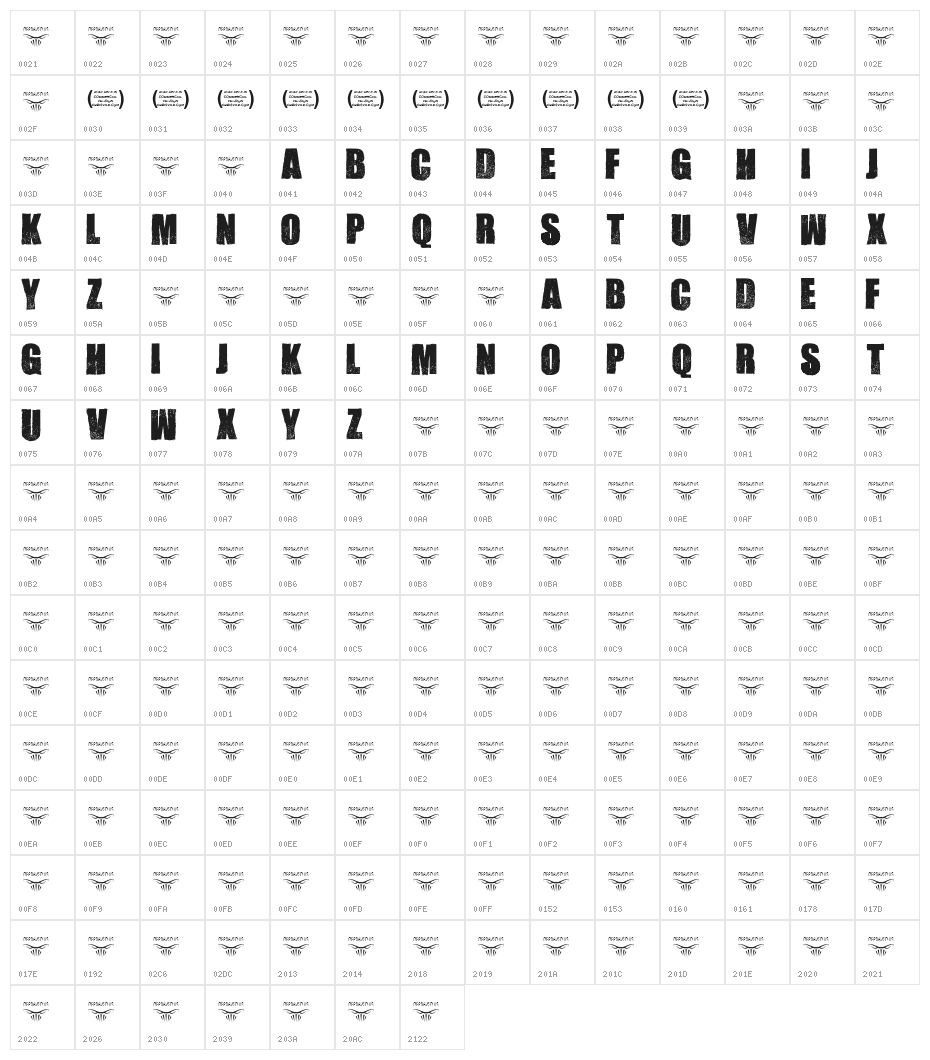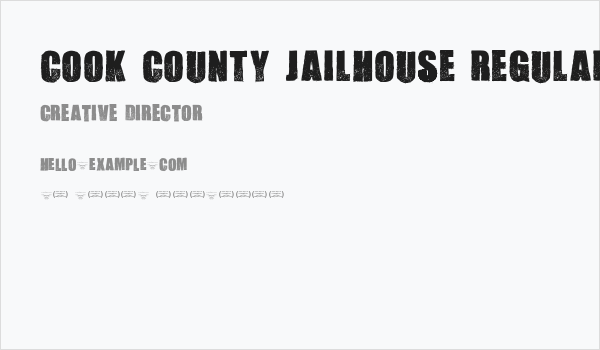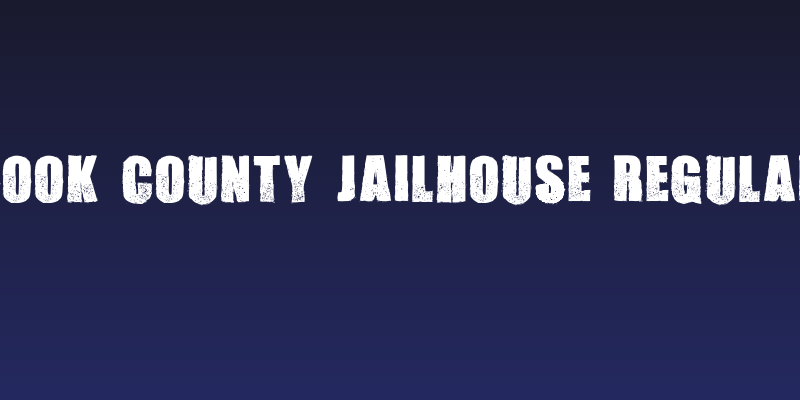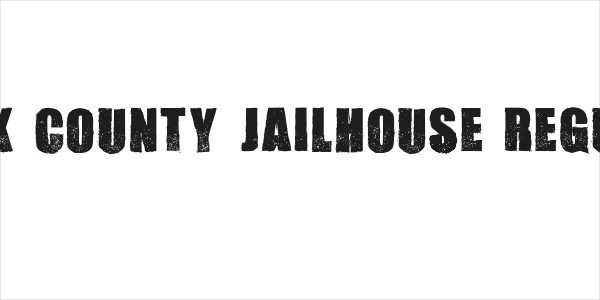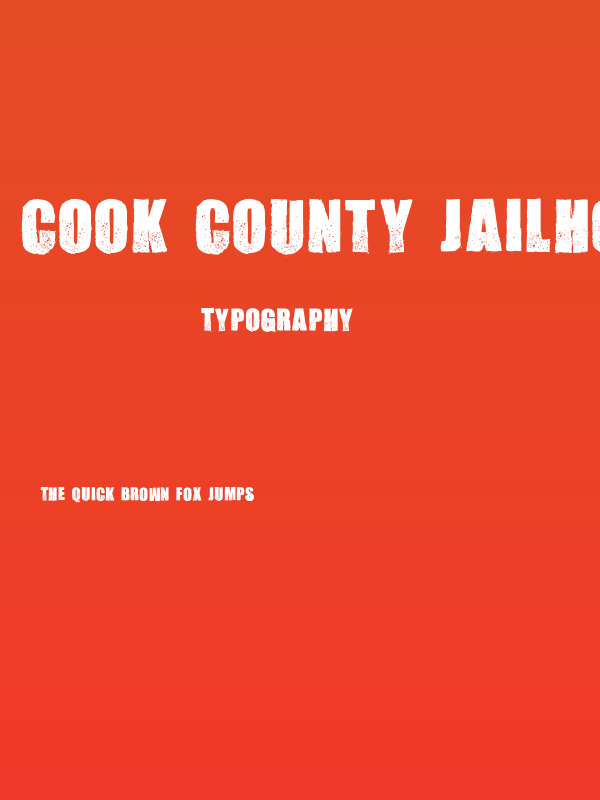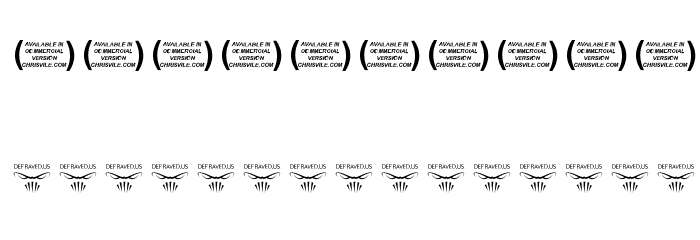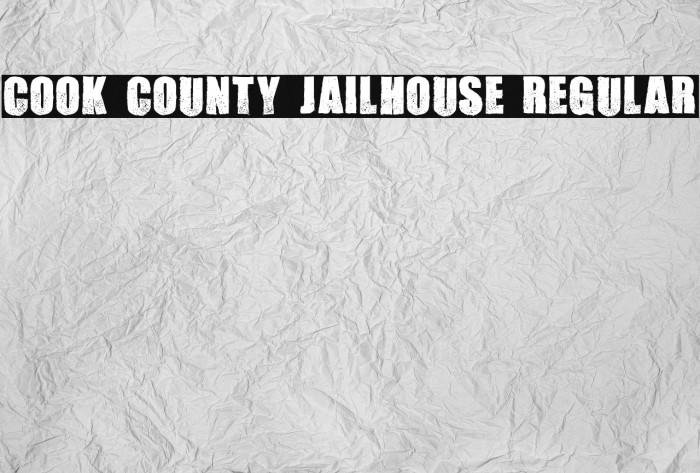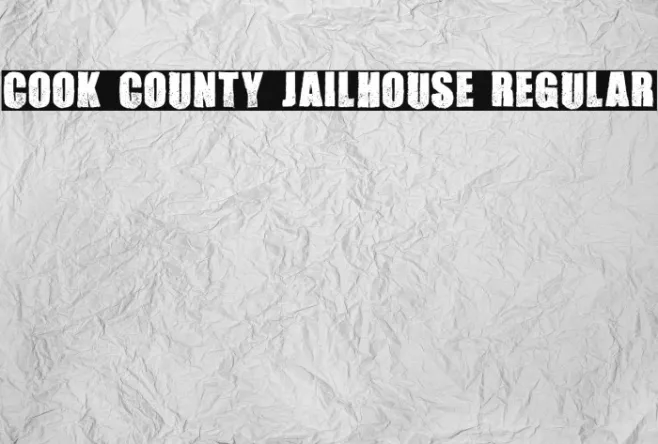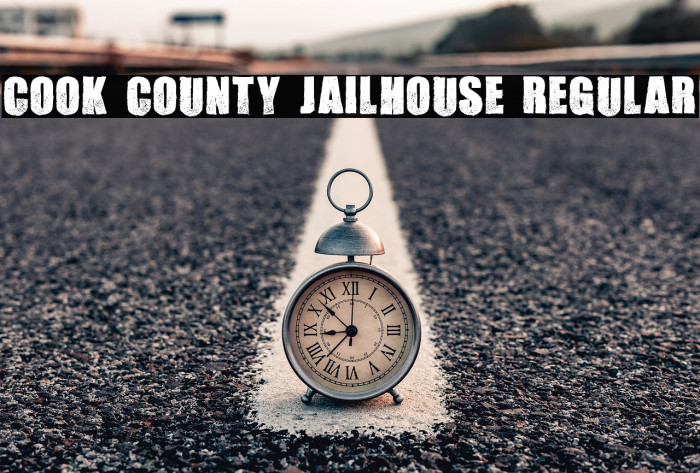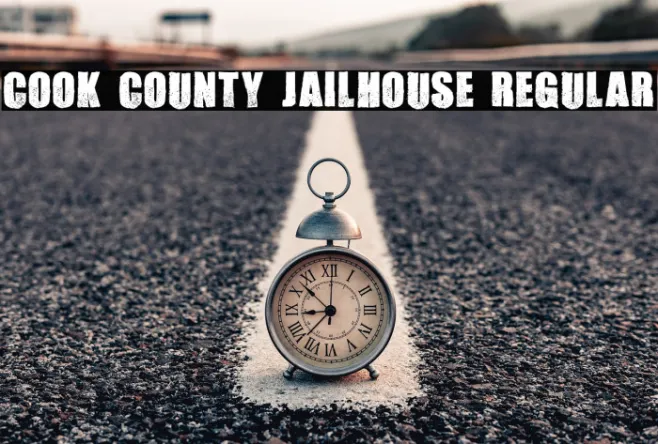
Cook County Jailhouse Regular Font
Cook County Jailhouse Regular Description
This font features a bold, distressed style with a rugged, textured appearance that gives it a vintage, worn-out look. The characters are bold and impactful, with a consistent width and a slightly condensed form. The texture adds a gritty, urban feel, making it ideal for designs that require a strong, attention-grabbing aesthetic. The uppercase letters are prominent, and the overall design suggests a sense of strength and resilience. The font's unique style is reminiscent of old signage or posters, adding a historical or industrial touch to any project.
| Proposed Projects | Ideal for posters, album covers, branding for vintage-themed products, or any project needing a strong, gritty aesthetic. |